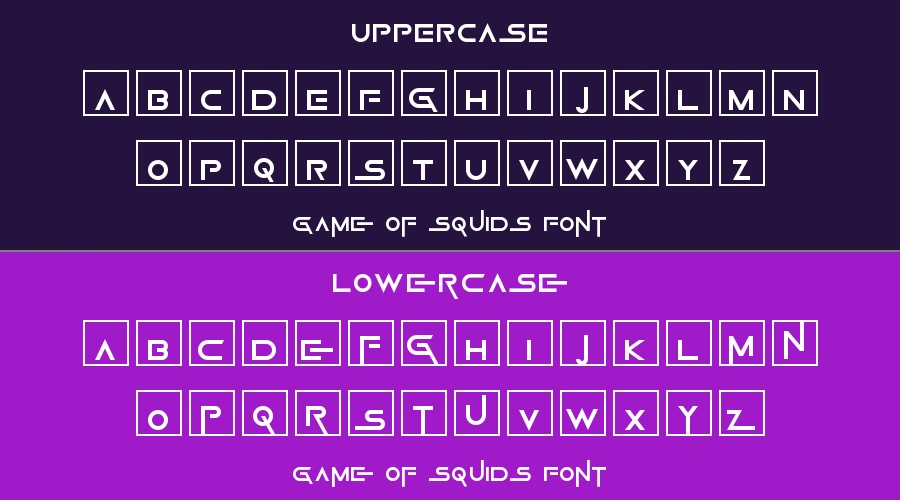
About Game Of Squids Font
Game Of Squids Font embodies typographic excellence through its masterful combination of concave curves and system consistency. Created for traditional magazines, this typeface delivers exceptional endurance and system compatibility across all applications. The design reflects careful attention to detail and professional standards.
Advanced capabilities include distinctive balanced tension and versatile oldstyle figures, giving designers creative control. When used in ceremonial texts, Game Of Squids Font exhibits remarkable format conversion. The harmonious balance between loop structure and artistic merit sets this typeface apart.